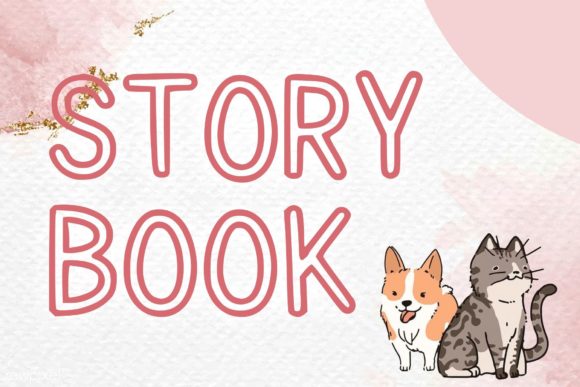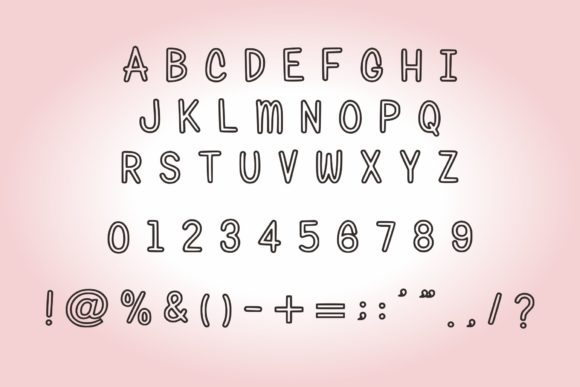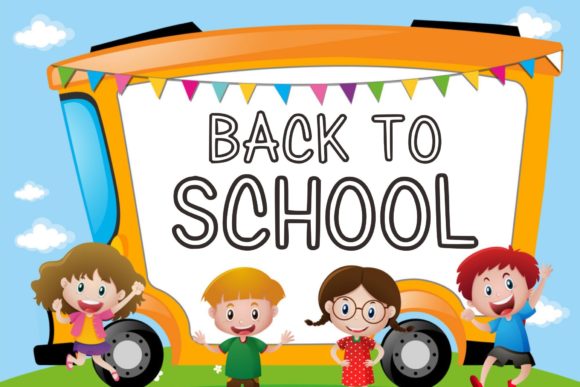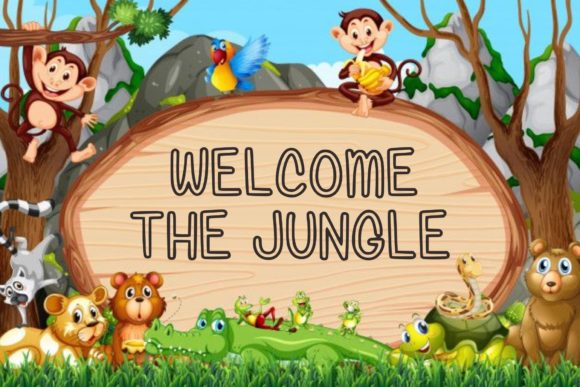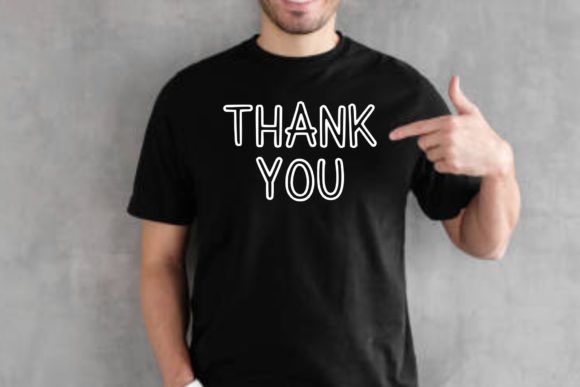
Discover the Perfect Font for Your Creative Vision
Have you ever stared at a blank canvas, unsure of where to start, and then suddenly, a spark of inspiration hits? That’s exactly what happens when you come across the Cemonk Font. This cool display font is designed to make your creative projects stand out with its unique and modern vibes.
Whether you’re a graphic designer, artist, or entrepreneur, the Cemonk Font is a valuable addition to your toolkit. Its versatility makes it perfect for a wide range of applications, from product packaging and t-shirts to labels, posters, and logos. With the Cemonk Font, you can elevate your brand and give your projects a professional, eye-catching look.
Cemonk Font Key Features
- Font Family: Cemonk Font is a modern sans-serif font, suitable for various digital applications.
- Unique Characteristics: Cemonk Font features a clean, minimalist design with subtle rounded edges and a balanced x-height, making it highly legible and versatile.
Cemonk Font Review
I’ve had the chance to work with Cemonk Font, and here’s my honest take.
- Unique Character: Cemonk Font has a distinctive look that can add a touch of personality to your designs.
- Legibility: Despite its quirks, the font is surprisingly legible, making it a great choice for body text.
- Customization: Cemonk Font offers a range of weights and styles, giving you plenty of options to experiment with.
- Limited Compatibility: I’ve noticed that Cemonk Font doesn’t play nice with some older browsers or systems, which can be a problem for clients with outdated tech.
- Over-Reliance on Context: While Cemonk Font is unique, it can also be distracting if used in isolation or without sufficient context.
- Not Ideal for Small Text: Due to its irregular shape, Cemonk Font can be difficult to read in small sizes or at a distance.
Overall, Cemonk Font is a great choice for designers who want to add some personality to their work. While it’s not perfect, its unique character and customization options make it a great addition to any design toolkit. Just be mindful of its limitations, and use it thoughtfully.
The Cemonk Font is ideal for:
- Creating bold and modern headlines.
- Emphasizing important text in designs.
- Adding a unique touch to presentations and documents.